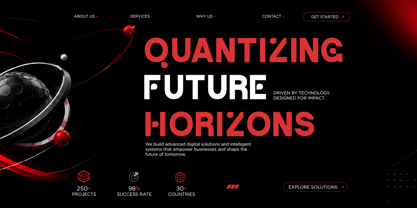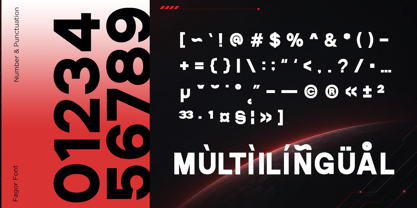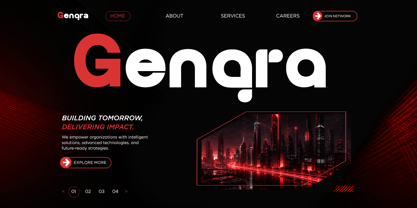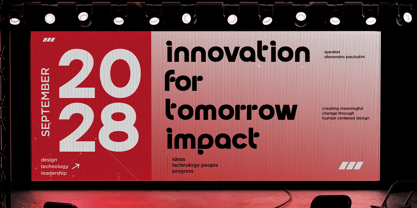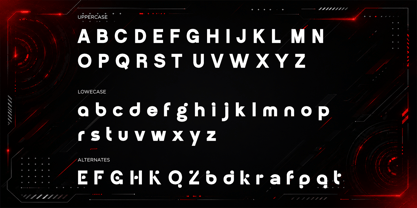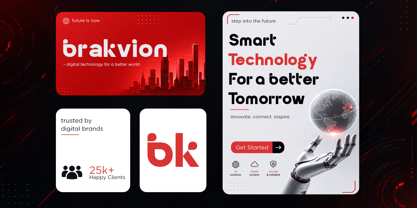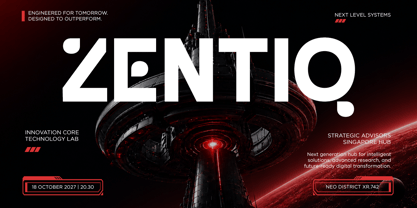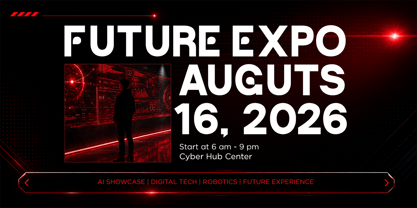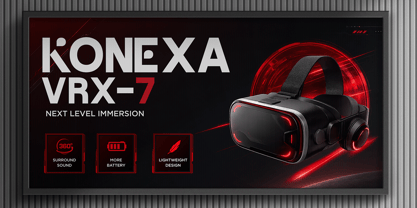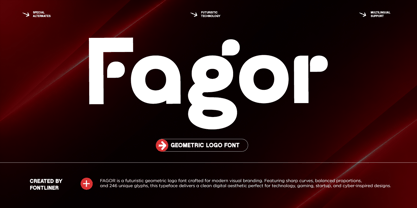
Fagor
Fagor is a futuristic geometric logo font designed to bring a clean modern aesthetic into contemporary branding projects. Built with balanced proportions, smooth curves, and bold geometric construction, this typeface creates a strong visual identity that feels sleek, professional, and technology-driven. Its modern appearance makes it perfect for designers looking to create memorable and forward-thinking visuals.
Inspired by cyberpunk aesthetics, digital interfaces, and modern startup branding, Fagor works beautifully for logo design, technology branding, gaming visuals, esports, UI/UX projects, advertising, posters, social media graphics, packaging, and futuristic editorial layouts. The clean geometric style delivers excellent readability while maintaining a unique and stylish personality ideal for modern creative industries.
Whether you are creating branding for a tech company, futuristic product packaging, gaming merchandise, sci-fi posters, or digital content, Fagor offers a versatile visual style that feels innovative, bold, and highly marketable. This font is crafted to help your projects stand out with a modern cyber-inspired identity and strong geometric character.
- Stylistic Alternates
- Multilingual Support